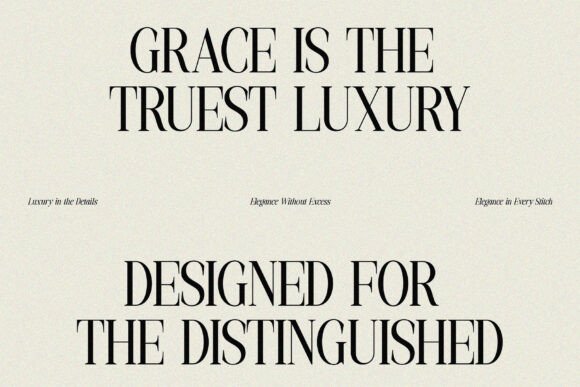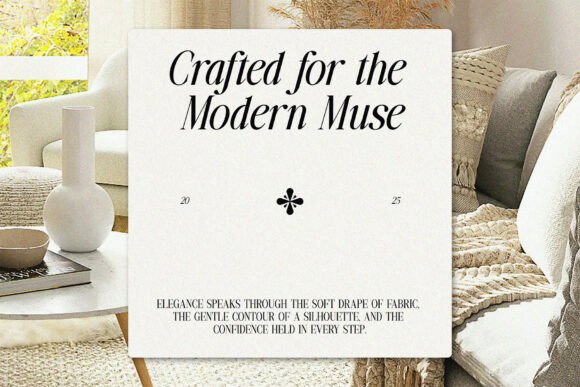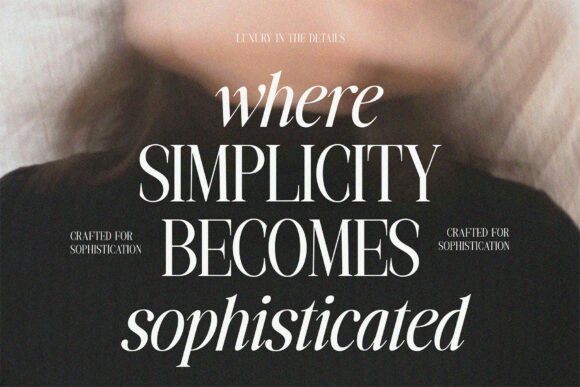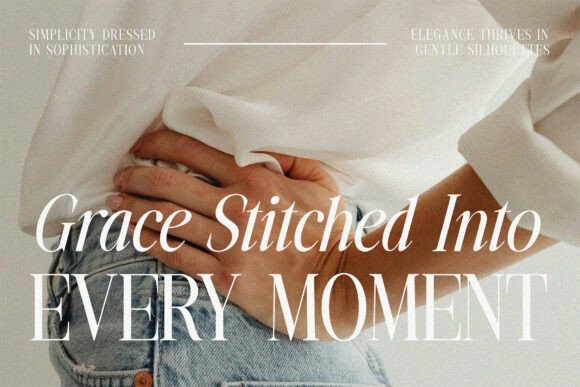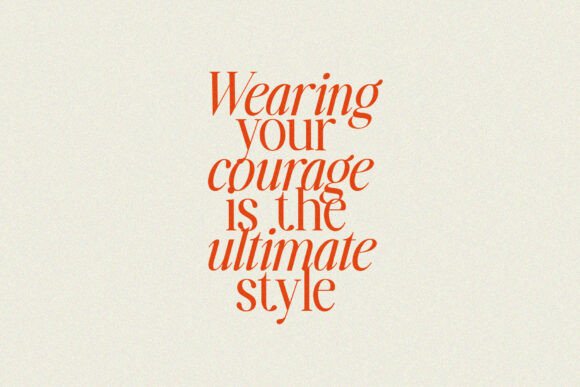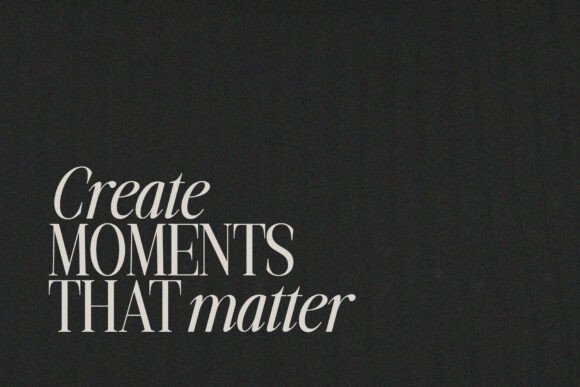
Introduction to Monarch Heritage Font Font
Fonts play a crucial role in design, and the Monarch Heritage Font font is a typeface that brings both character and versatility to any project. Whether you’re working on a branding project, a website, or a print design, the Monarch Heritage Font font offers a unique style that can elevate your work.
Monarch Heritage is an elegant and modern editorial display serif crafted with refined contrast and graceful curves.
Designed to bring a sense of luxury, timelessness, and sophistication, this typeface is perfect for designers who want to elevate their visual storytelling With its distinctive Regular and Italic styles, Monarch Heritage offers a dynamic and high–end typographic experience—ideal for magazine titles, premium branding, packaging, wedding designs, creative portfolios, and fashion-forward posters.
Key Features of Monarch Heritage Font Font
Why Choose Monarch Heritage Font Font?
The Monarch Heritage Font font is more than just a typeface – it’s a design tool that helps you communicate your message with style and clarity. Its unique character set and versatile design make it suitable for a wide range of applications, from elegant invitations to bold headlines.
With its carefully crafted letterforms and balanced proportions, the Monarch Heritage Font font ensures readability and visual appeal across all mediums.
What makes Monarch Heritage Font font special?
The Monarch Heritage Font font stands out with its unique design, exceptional readability, and versatility across various design applications.